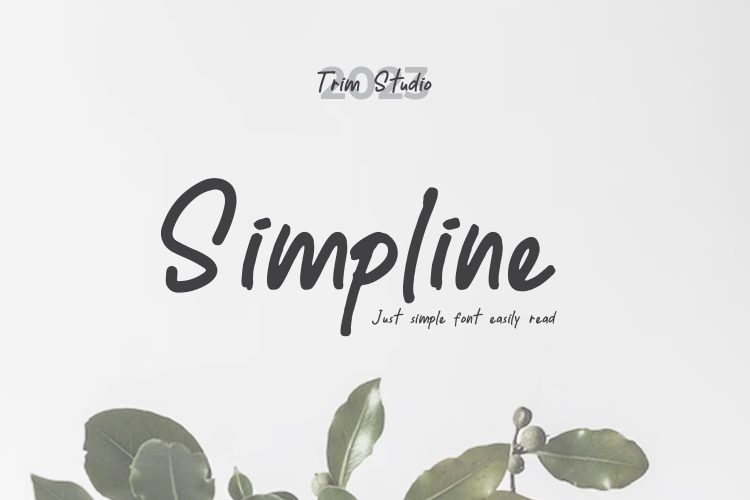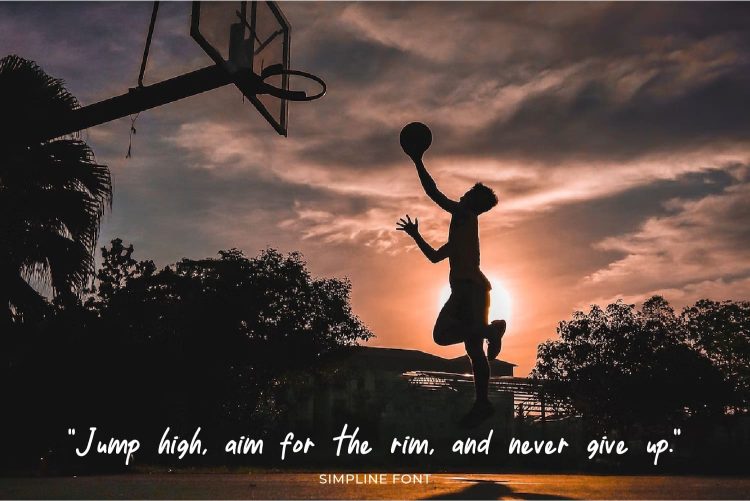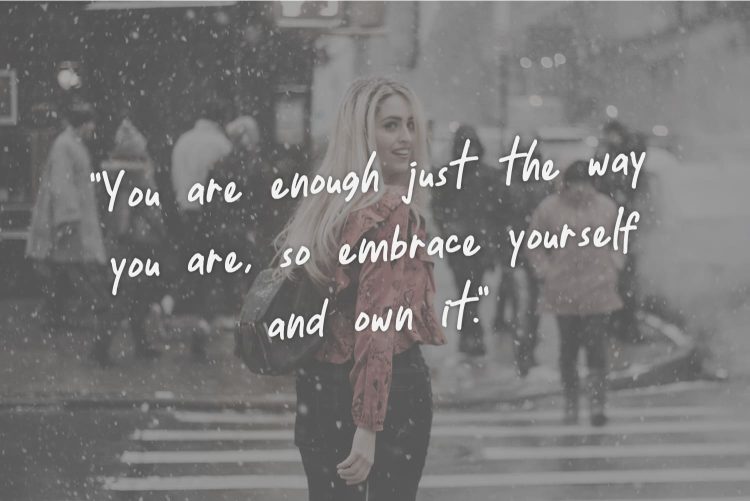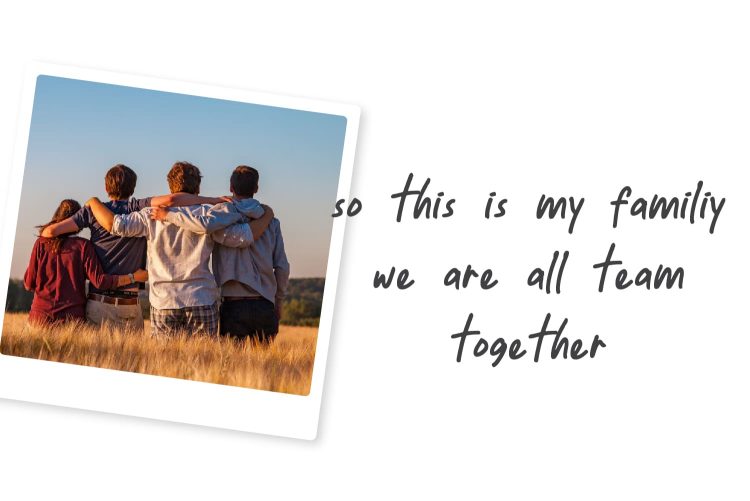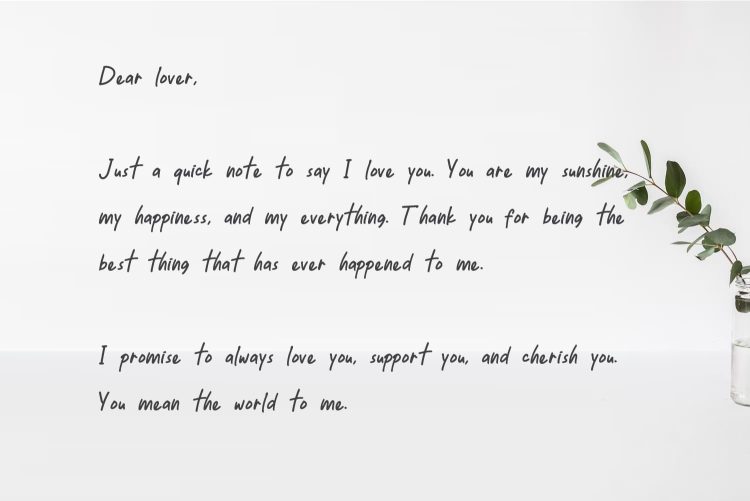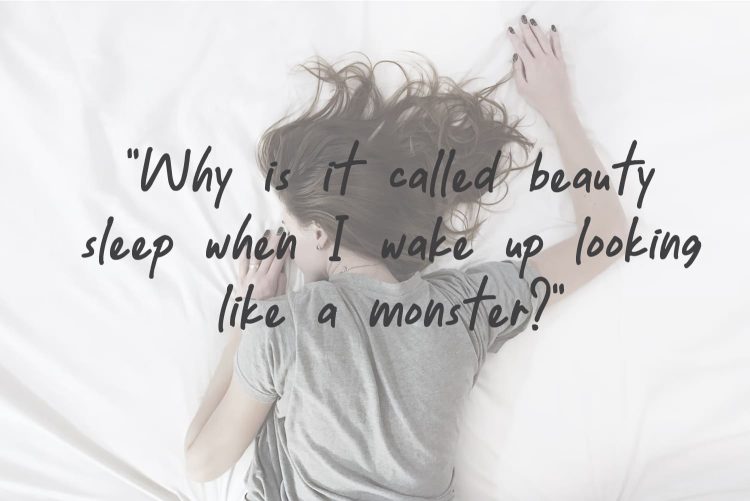
Simpline is a beautifully crafted handwritten font that exudes simplicity and elegance. With its smooth flow and clean lines, this font is perfect for a wide range of design projects. Its simple and minimalistic style makes it ideal for use in various applications, from logos to social media graphics, invitations, and more.
The effortless flow of each character adds a individual touch to your design, making it stand out from the rest. Whether you need a font for individual or business use, Simpline is a versatile and timeless choice that you can rely on for any project. Try it out today and see how it can elevate your design!